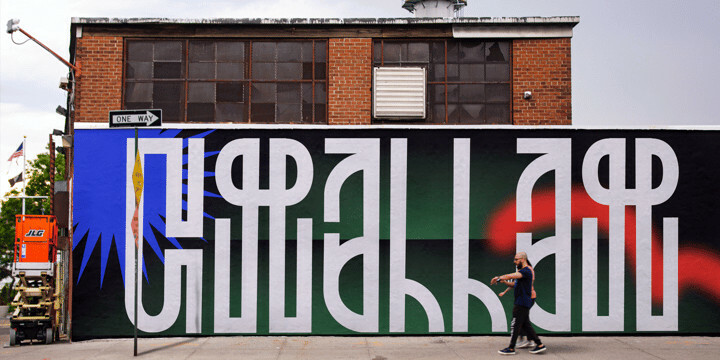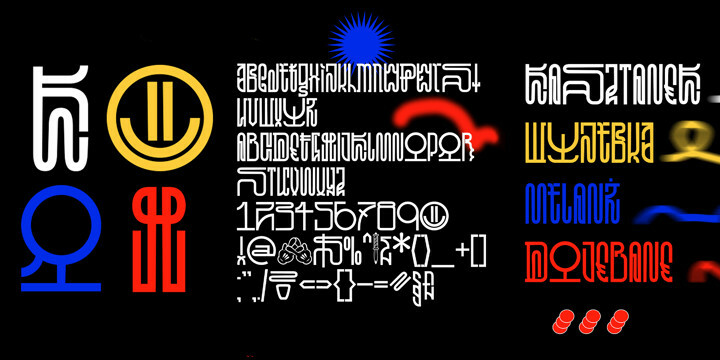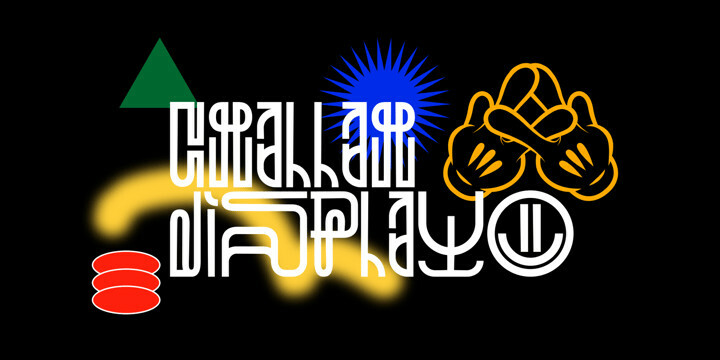
Challah Display Font
Challah Display FontChallah is a display font containing 295 glyphs.
Letters are very diverse, but because they contain several shapes characteristic for each other – they retain a certain coherence.
When creating the font, the main inspiration was to take from the Brazilian graffiti trend – Pichação and Korean typography.
Most of the letters are the same size and width, however, when designing, we also tried to include at certain moments small “surprises” that will surely interest and surprise the user of the above-mentioned typeface.
The font fits very well into the urban structure, therefore it perfectly matches the art on the walls with the art on the billboards, creating a kind of dialogue.